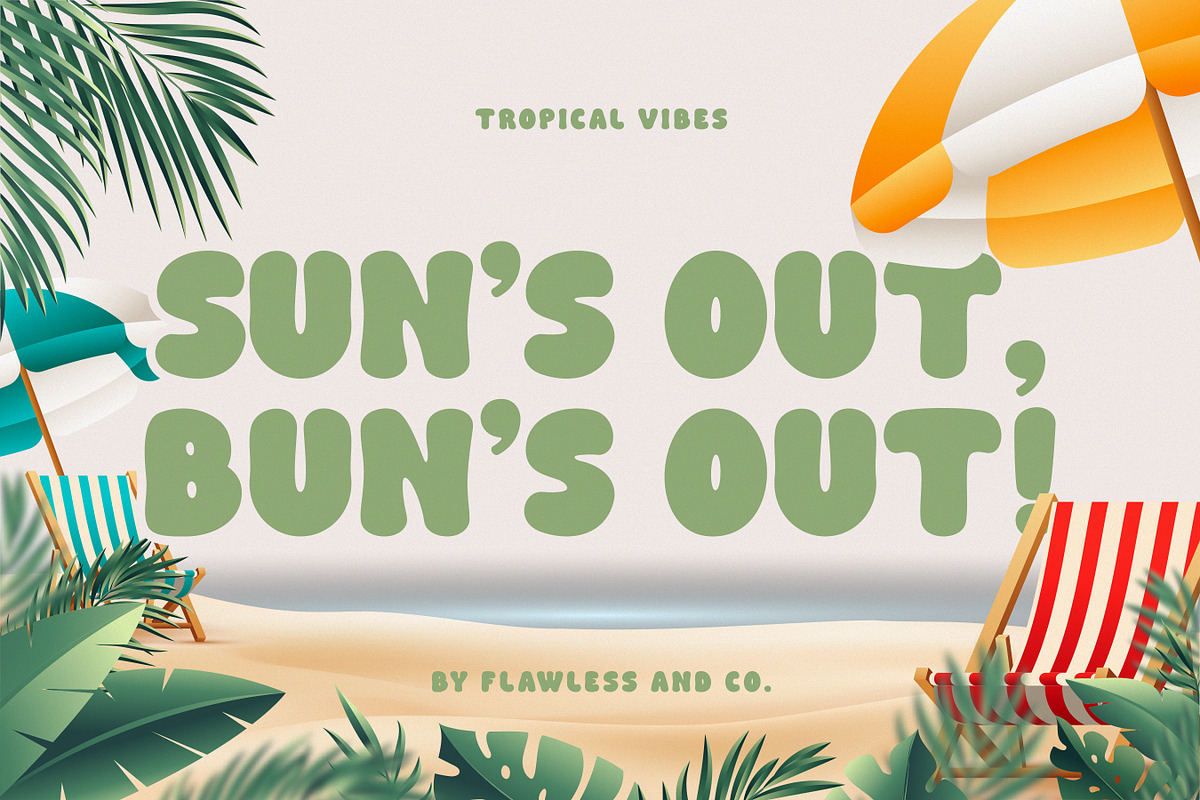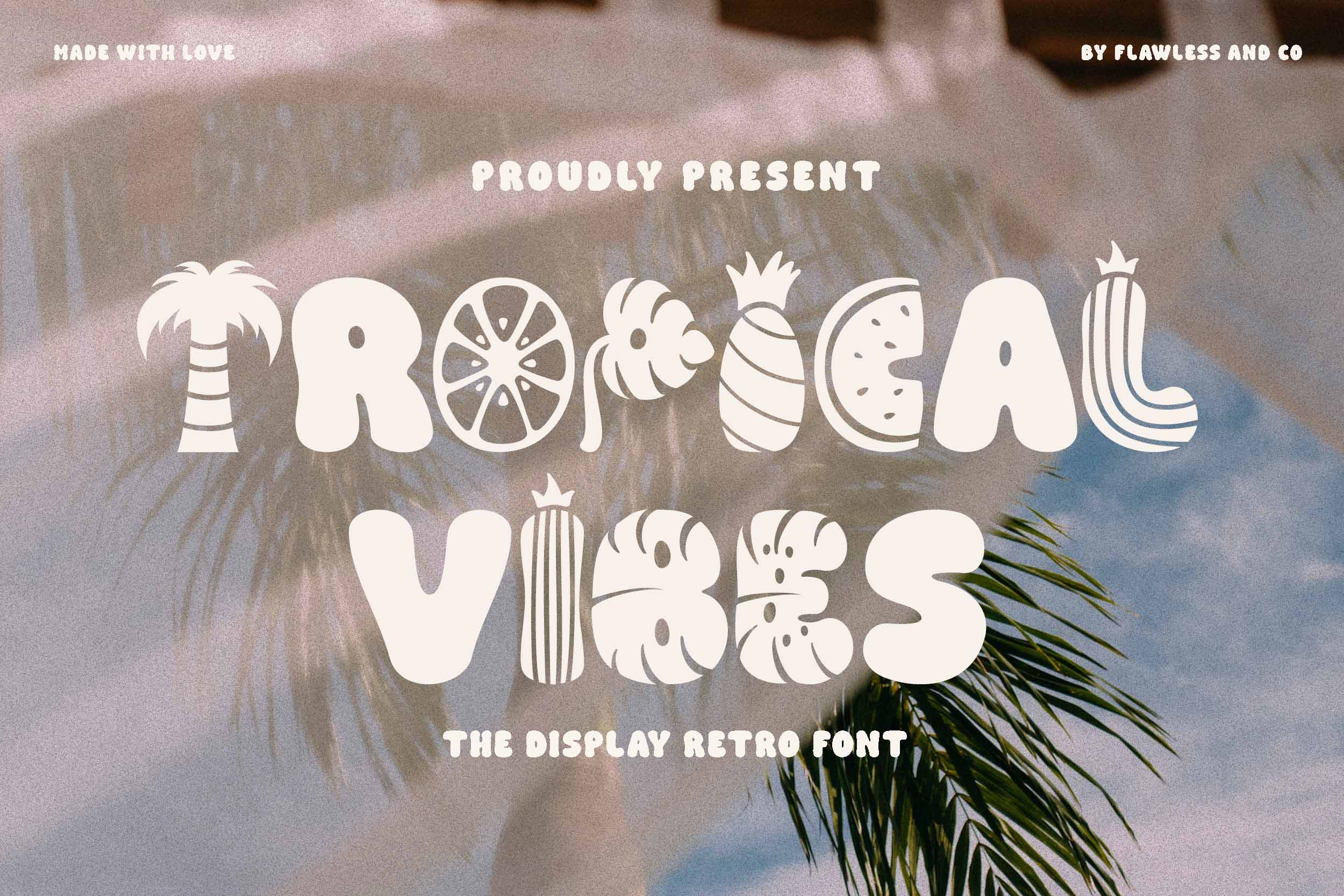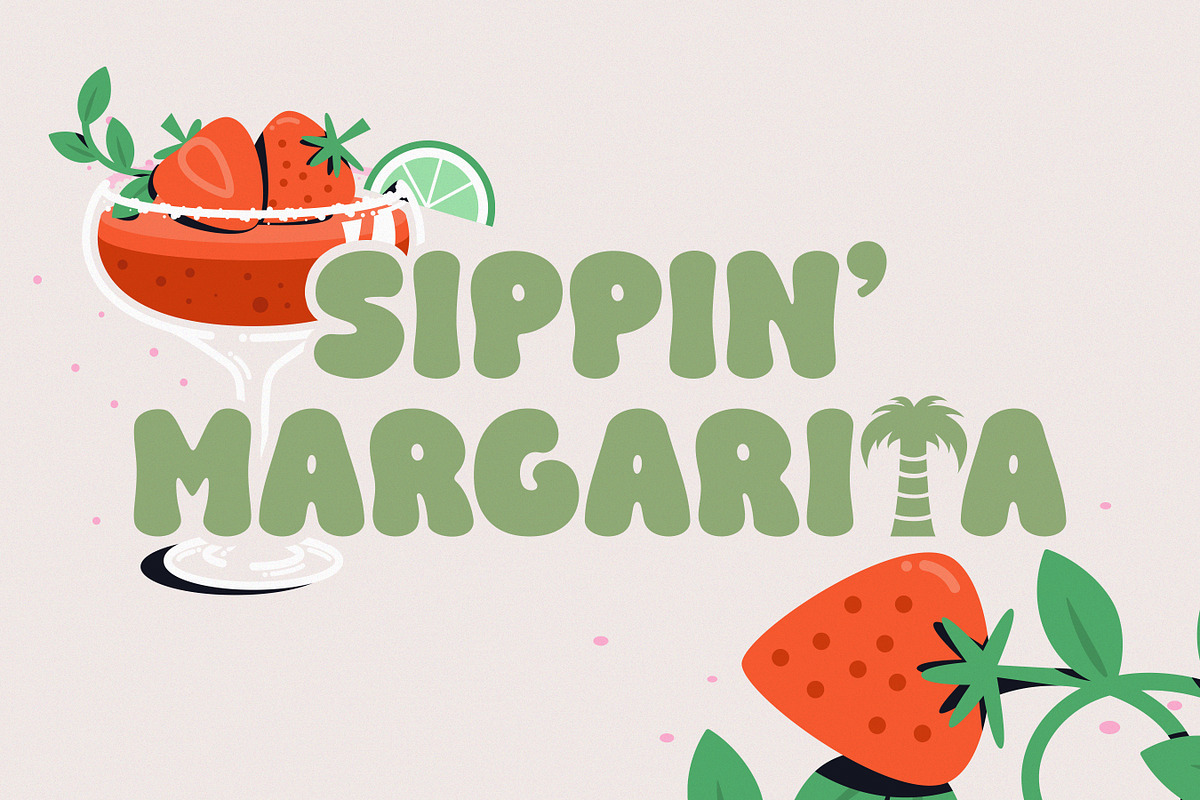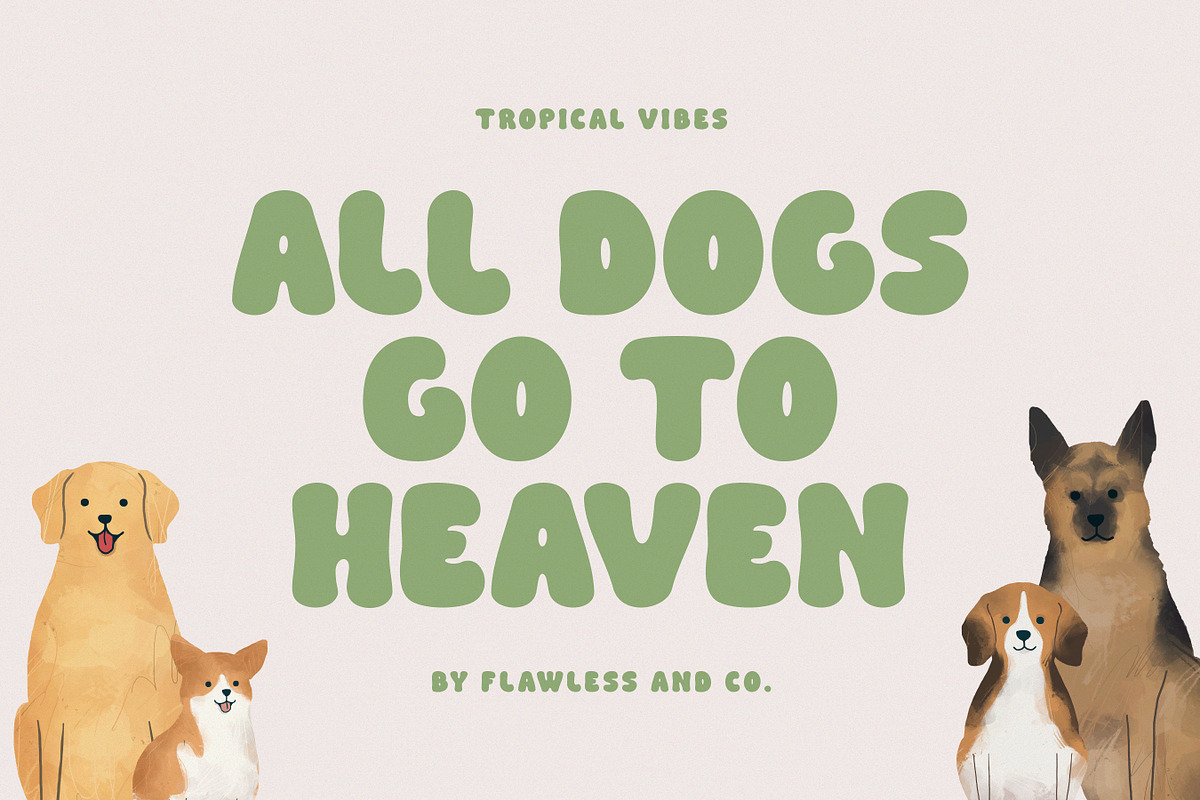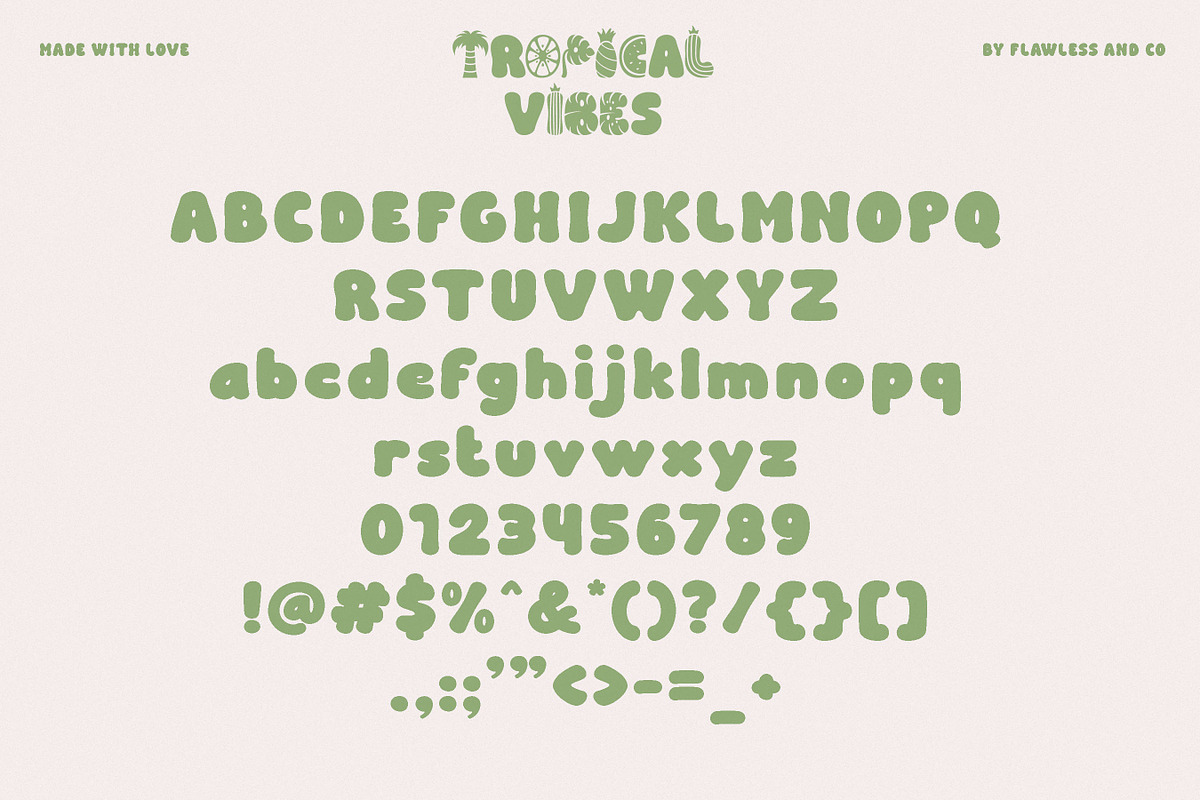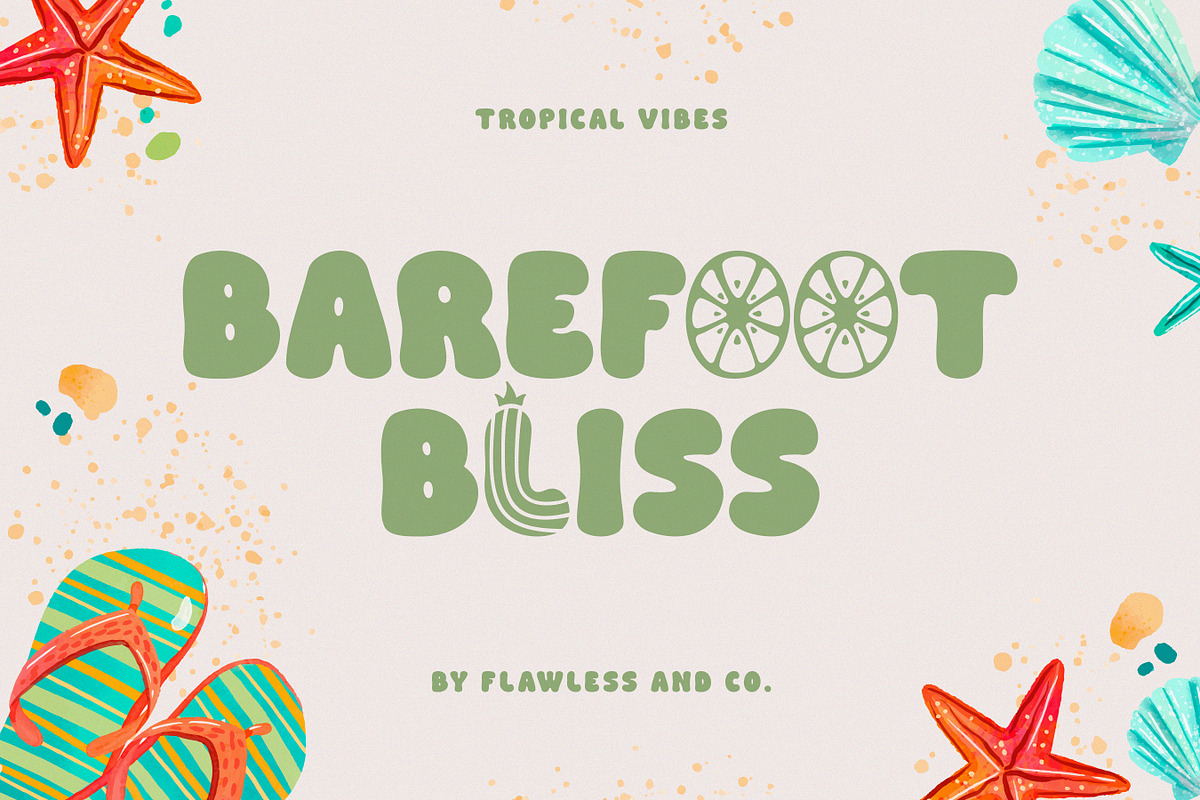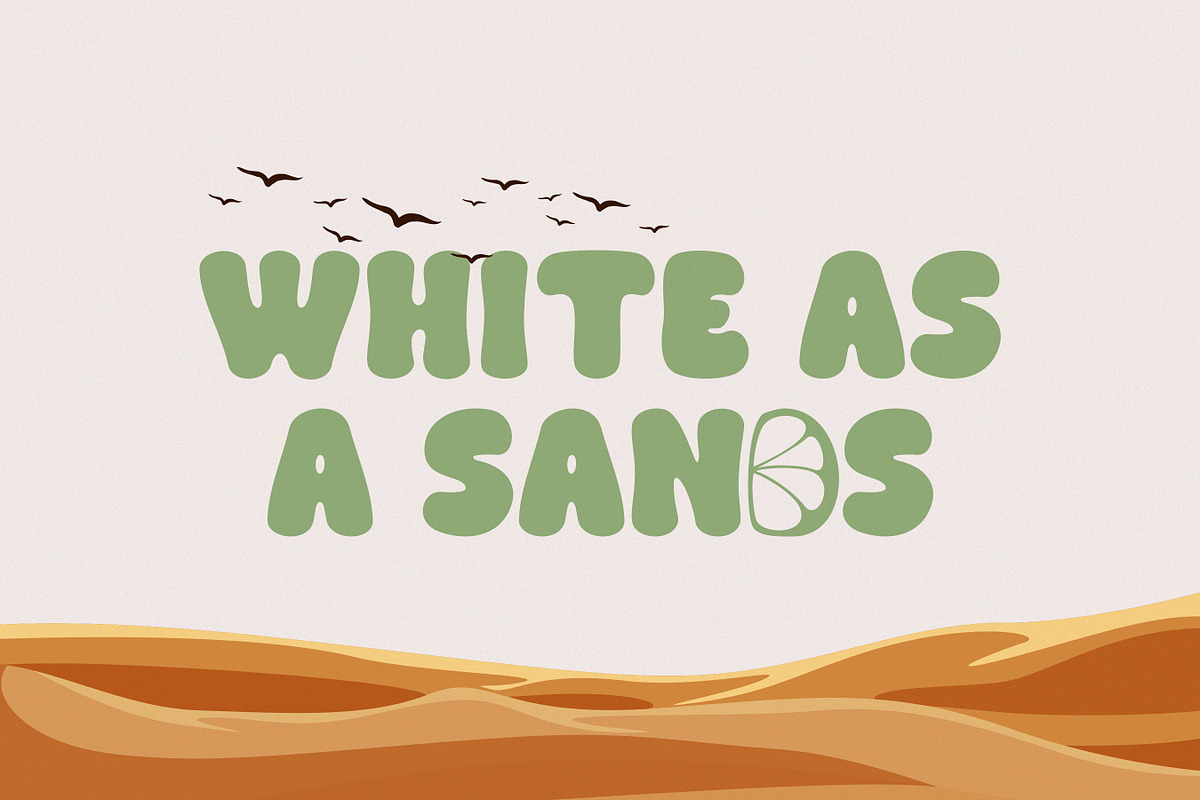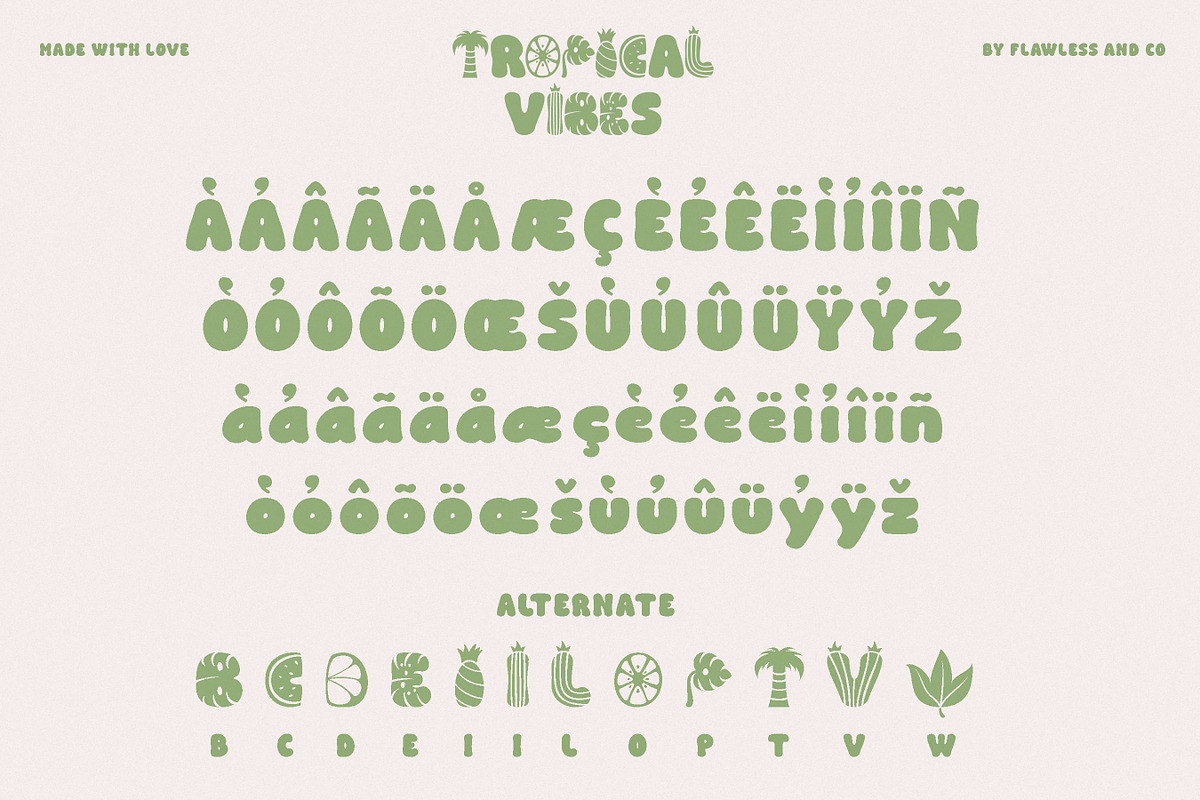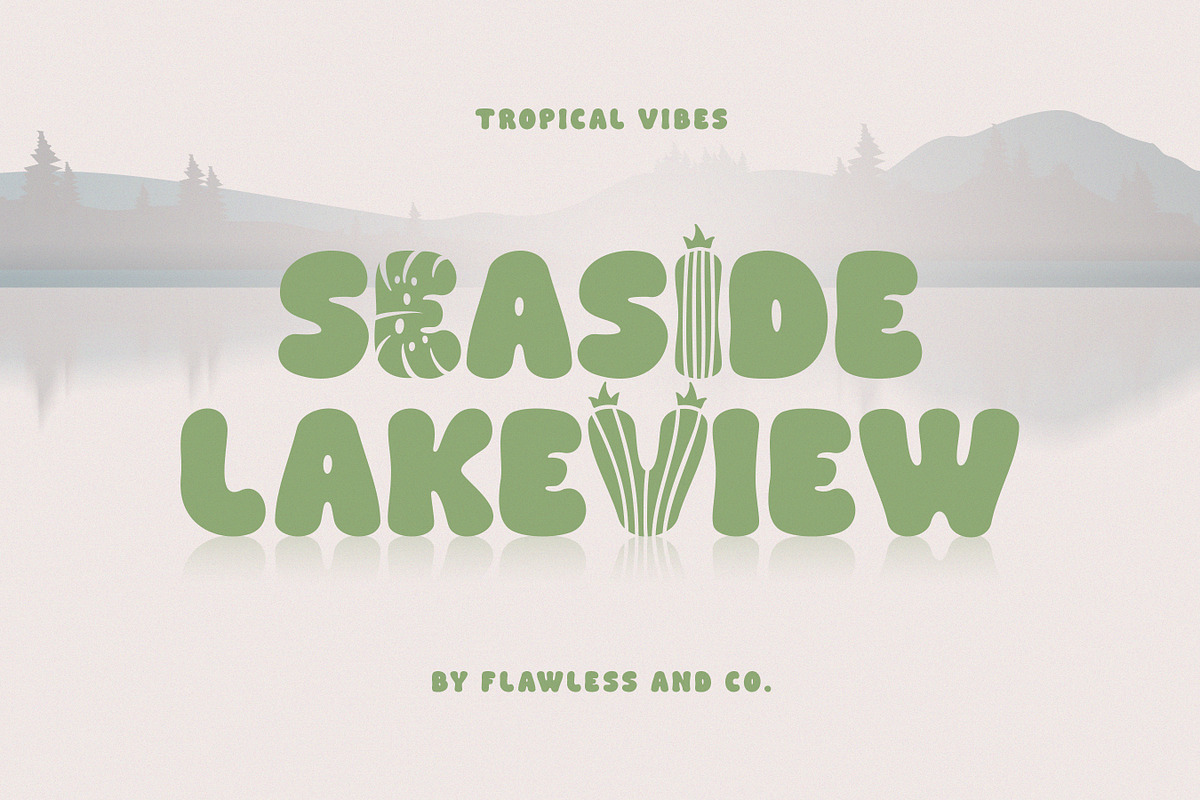
Tropical Vibes - Display Retro Font
Introducing "Tropical Vibes" - A Display Retro Font. Transport yourself to a bygone era of sun-soaked beaches and vibrant leisure with "Tropical Vibes," a captivating display retro font that channels the essence of nostalgia and carefree spirit. With its retro charm and bold character, "Tropical Vibes" brings a touch of vintage allure to your designs.
Multilingual Uppercase alphabet A-Z Lowercase alphabet a-z Alternate Character Numbers 0-9 Some punctuation